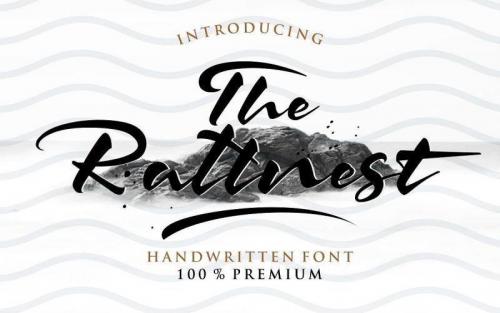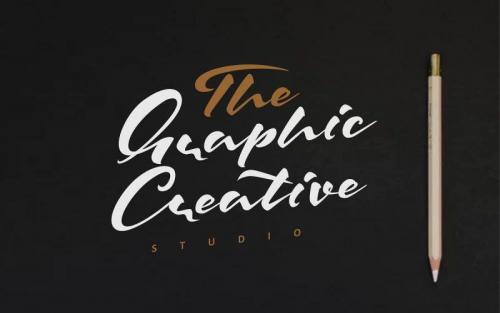
The Rattnest Brush Font
We have new font the name is The Rattnest dapper handwritten font with a personal charm character. This font great for branding, letterhead, magazine, signature font, custom lettering font, brush font, logo font, custom font, text font, hand-lettered font, handwriting font, and many more or anything do you want..!!